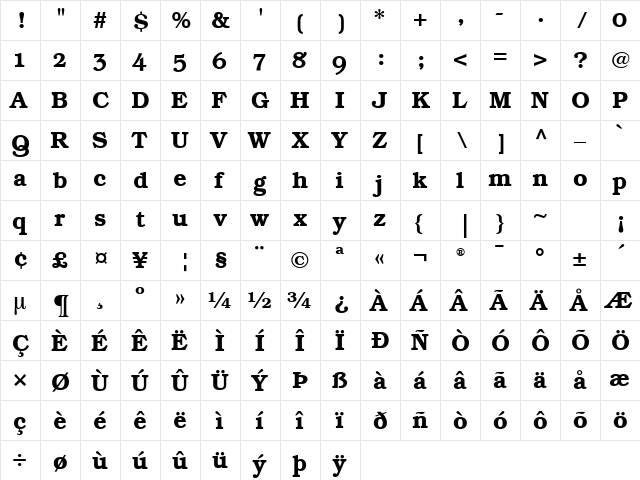
Bookman OsF Demi
Design Context for Bookman OsF Typeface
Bookman OsF takes a measured approach to typography — its balanced proportions and neutral character make it a reliable workhorse for both digital and print work.